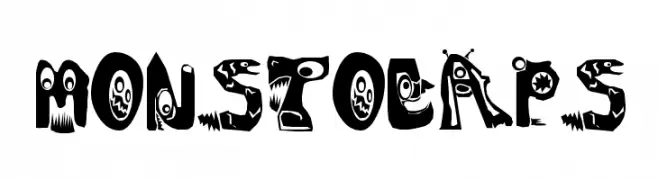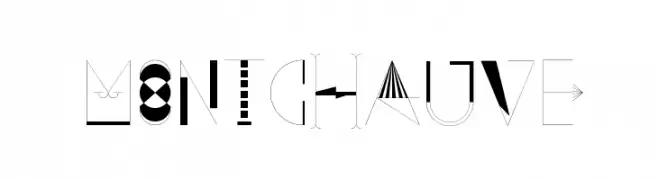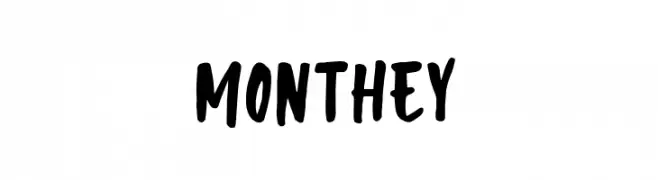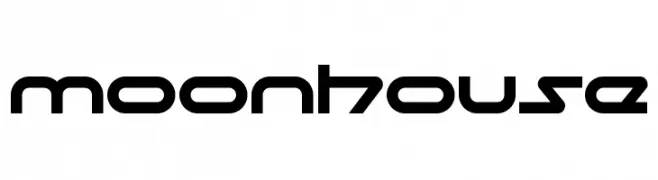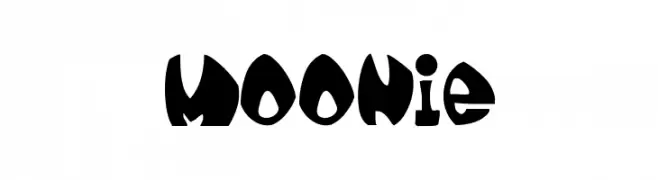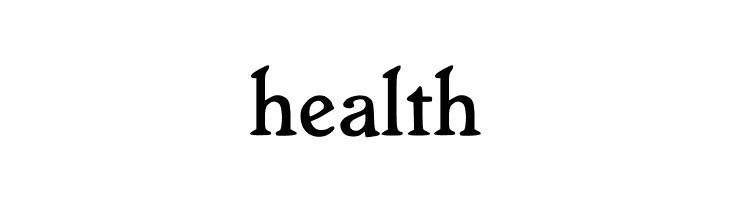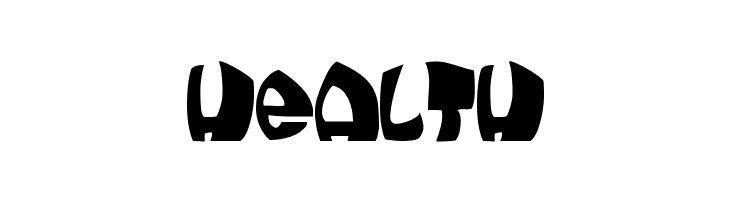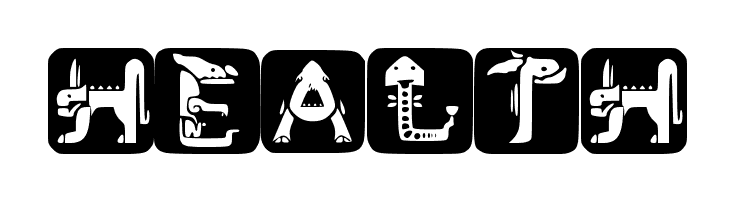
A bold slab serif font with thick strokes and rounded edges, perfect for impactful designs.
A bold, decorative font with fantasy-themed elements and intricate designs.
A bold and italic script font with elegant, flowing cursive letters.
A modern decorative font with geometric and abstract design elements.
A bold, handwritten font with a playful and energetic style.
A futuristic, geometric font with bold, angular letterforms.
A bold, playful font with rounded, cut-out letterforms and a retro-modern style.
A playful, bold font with rounded, whimsical characters.
A classic serif font with elegant, traditional design elements.